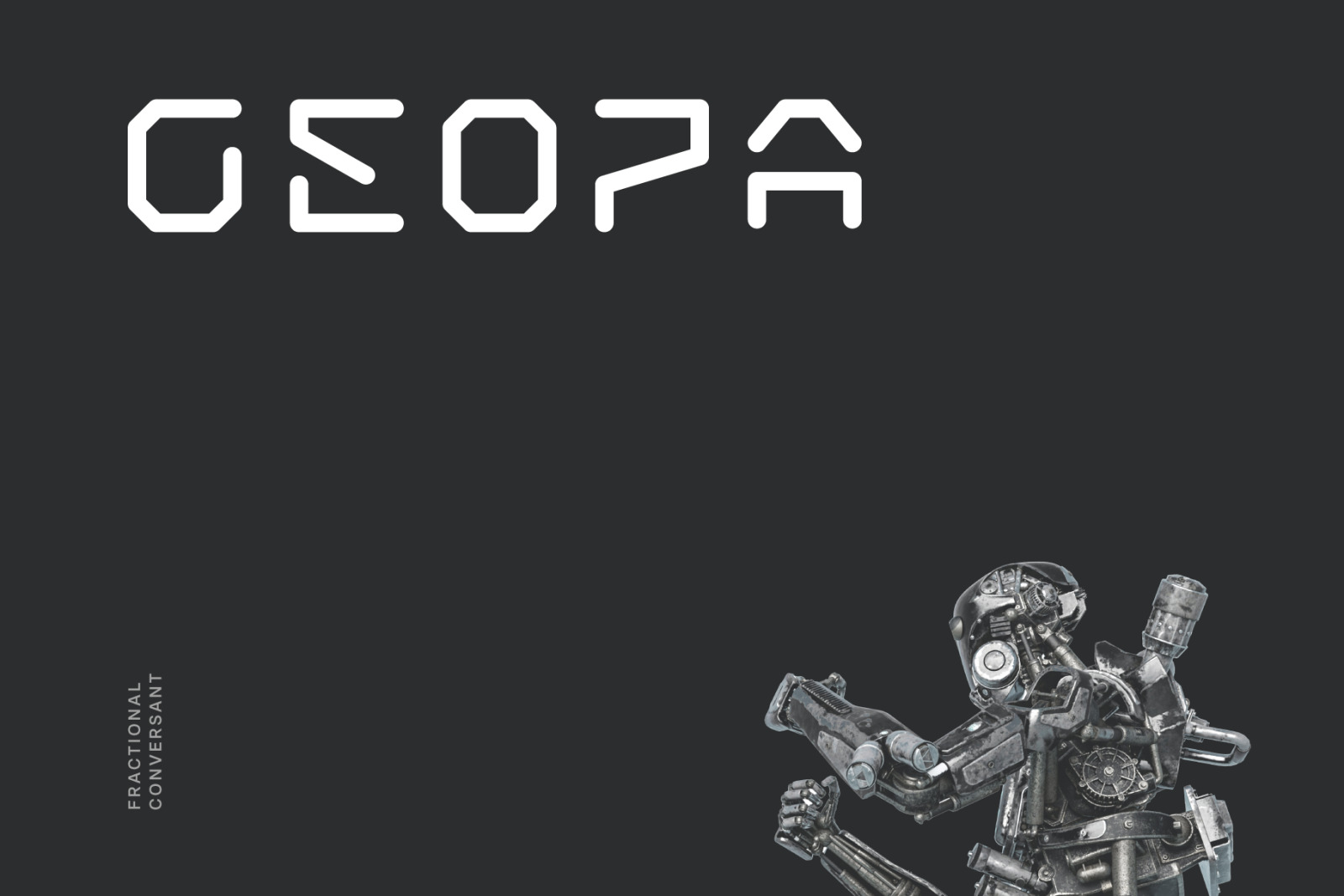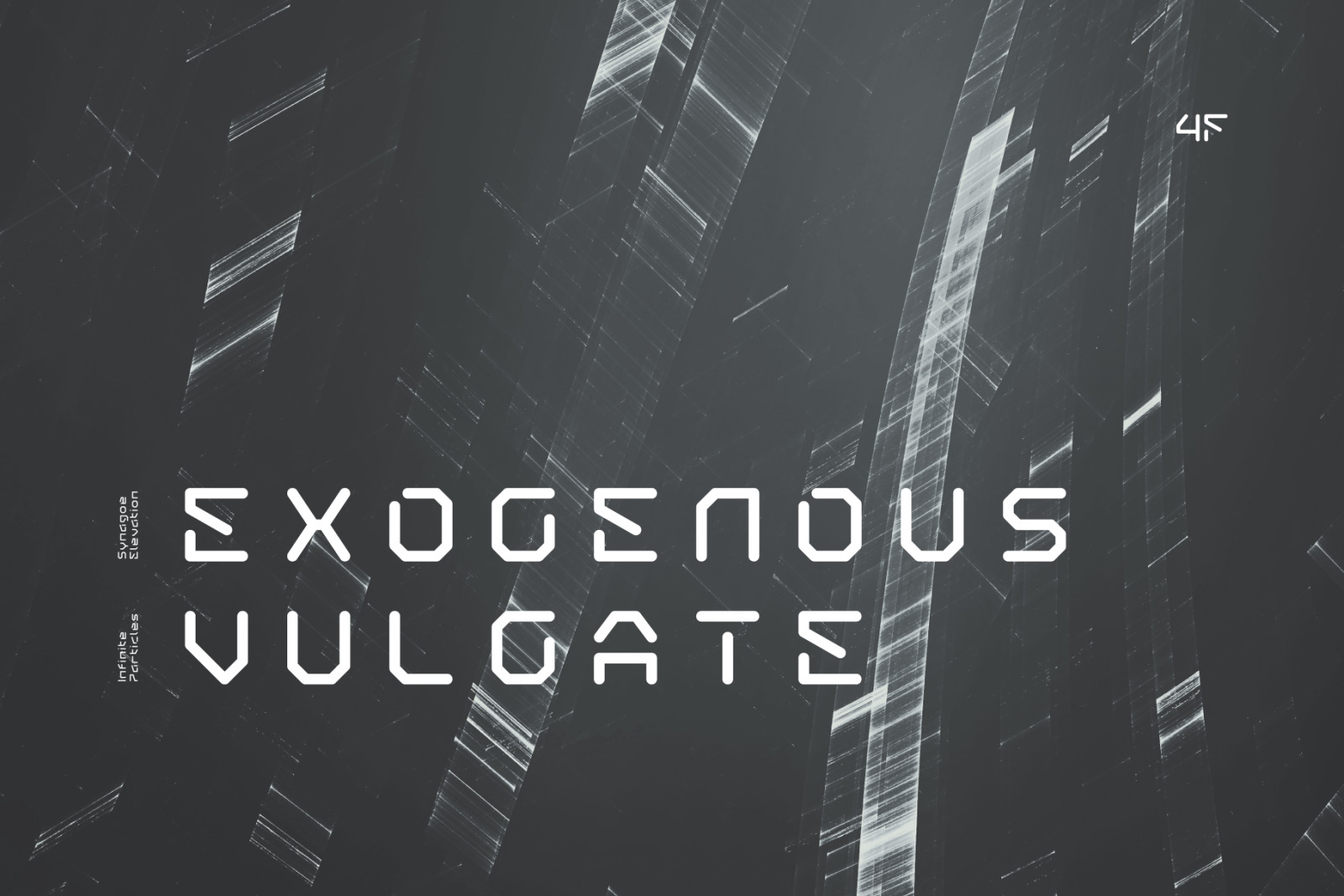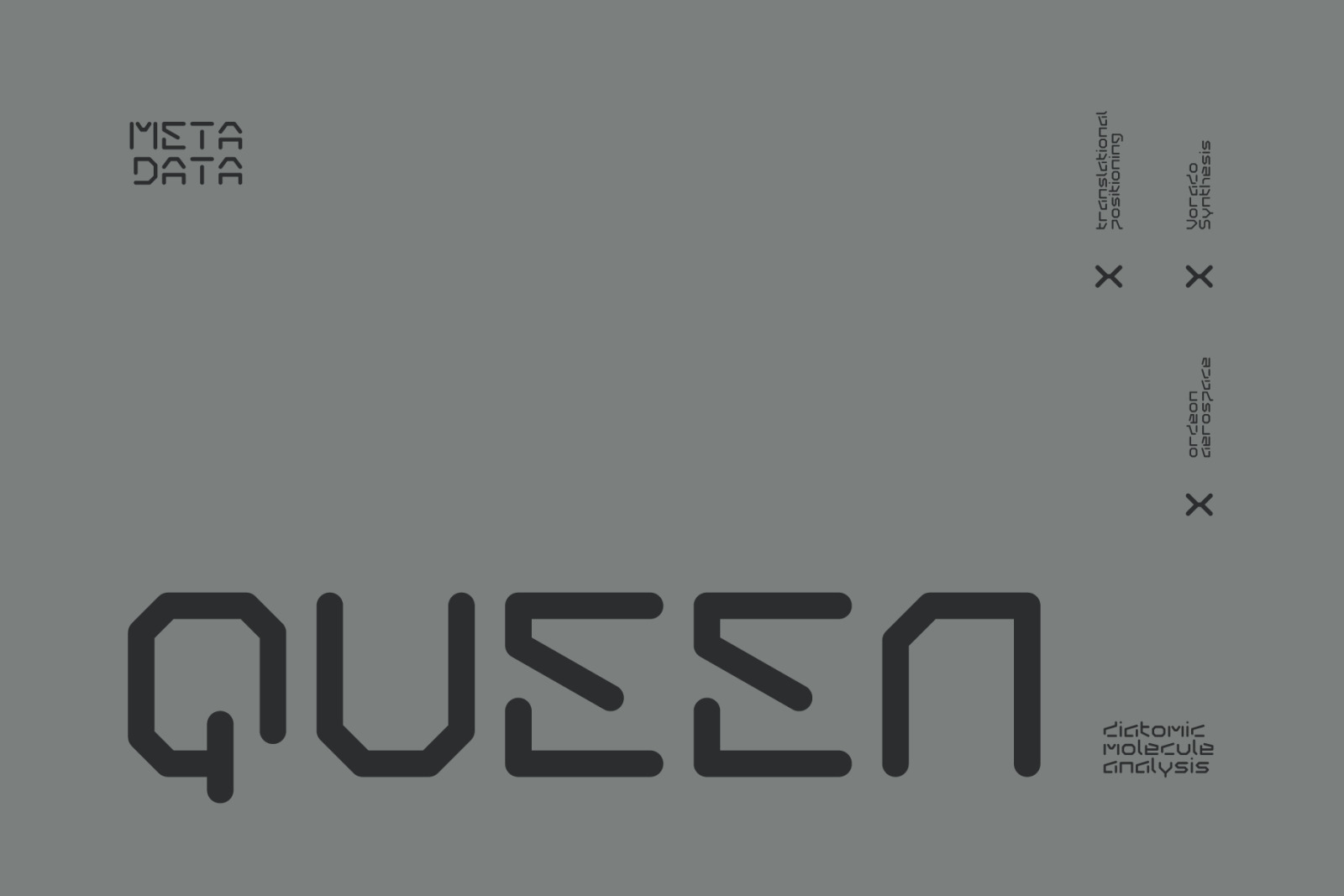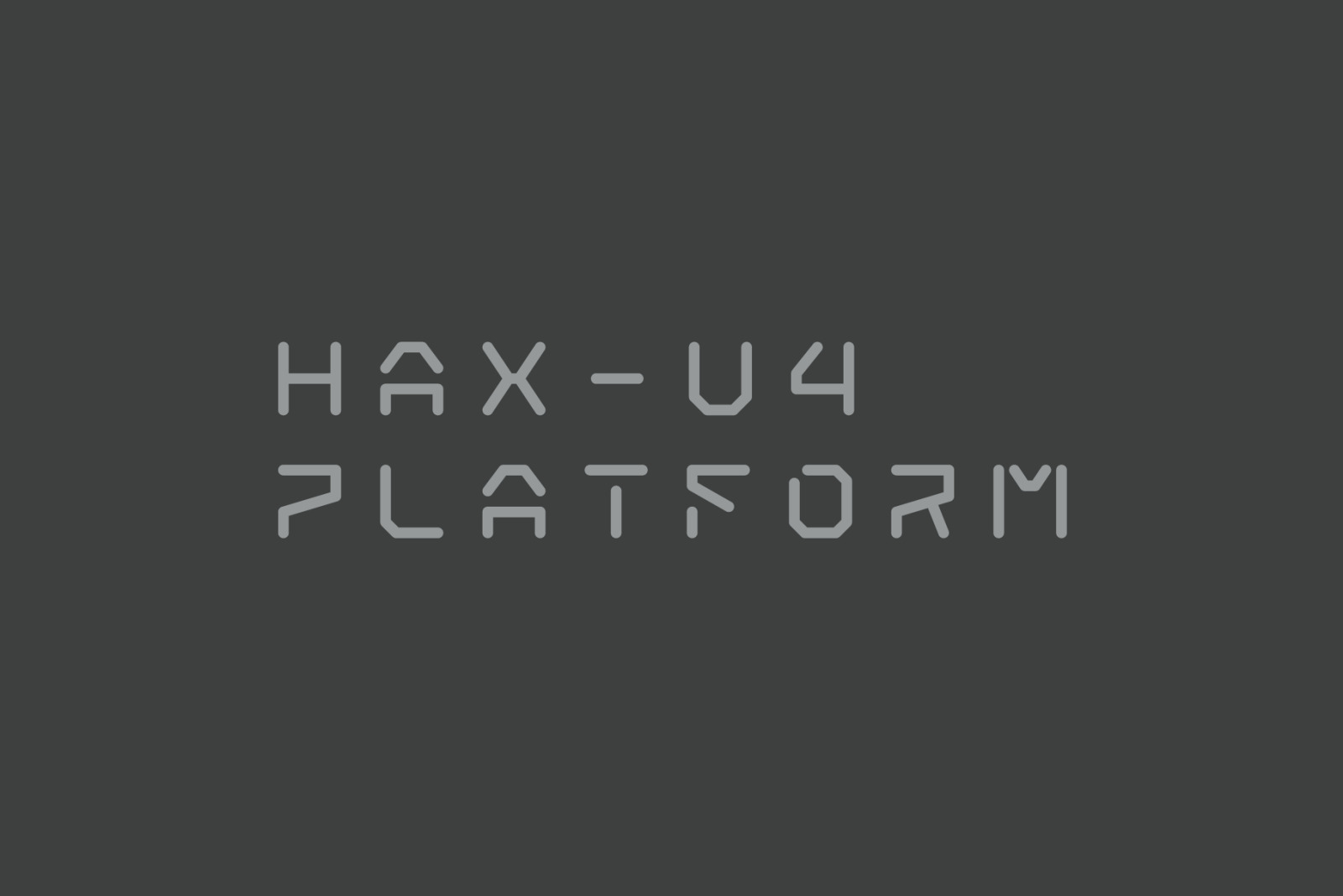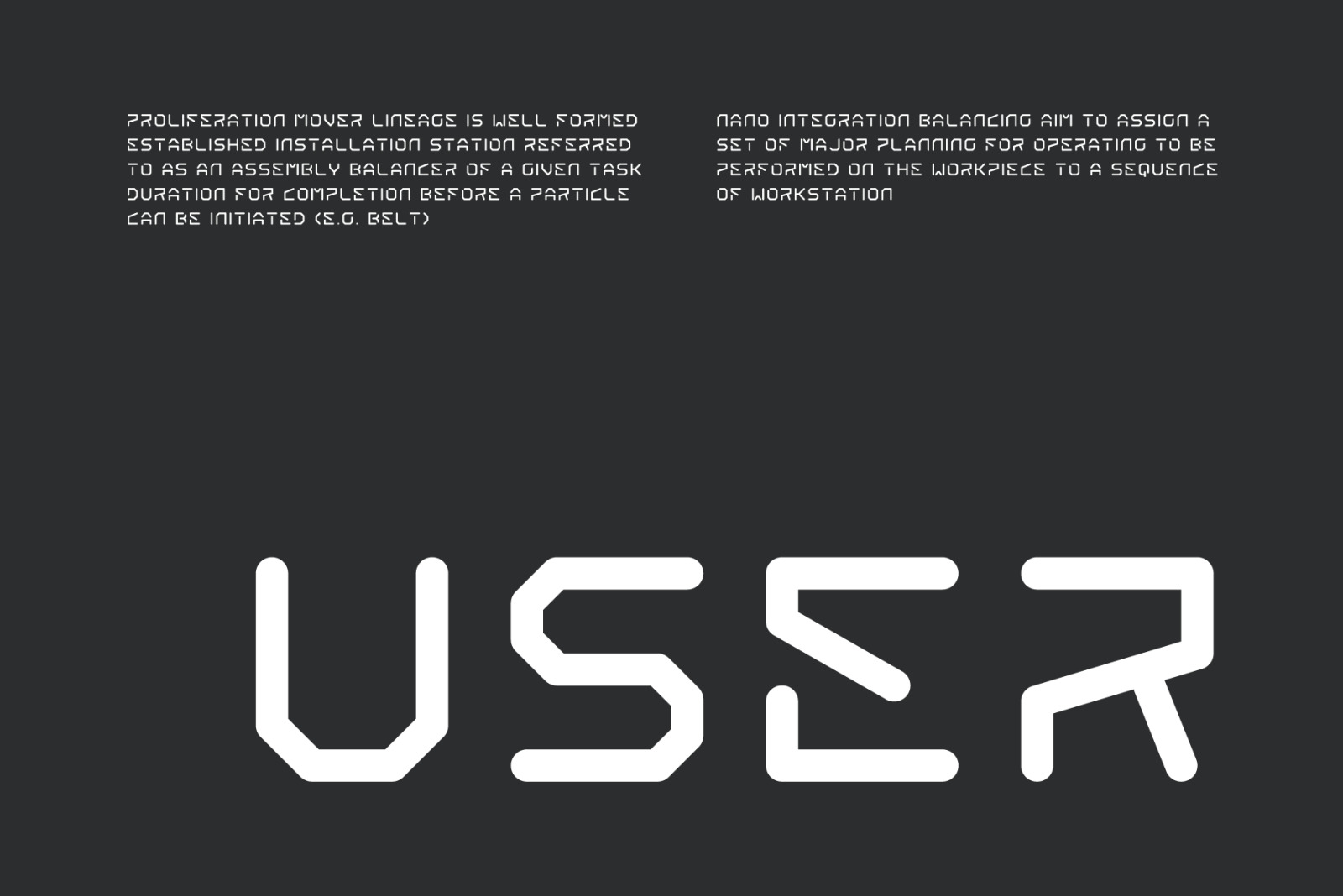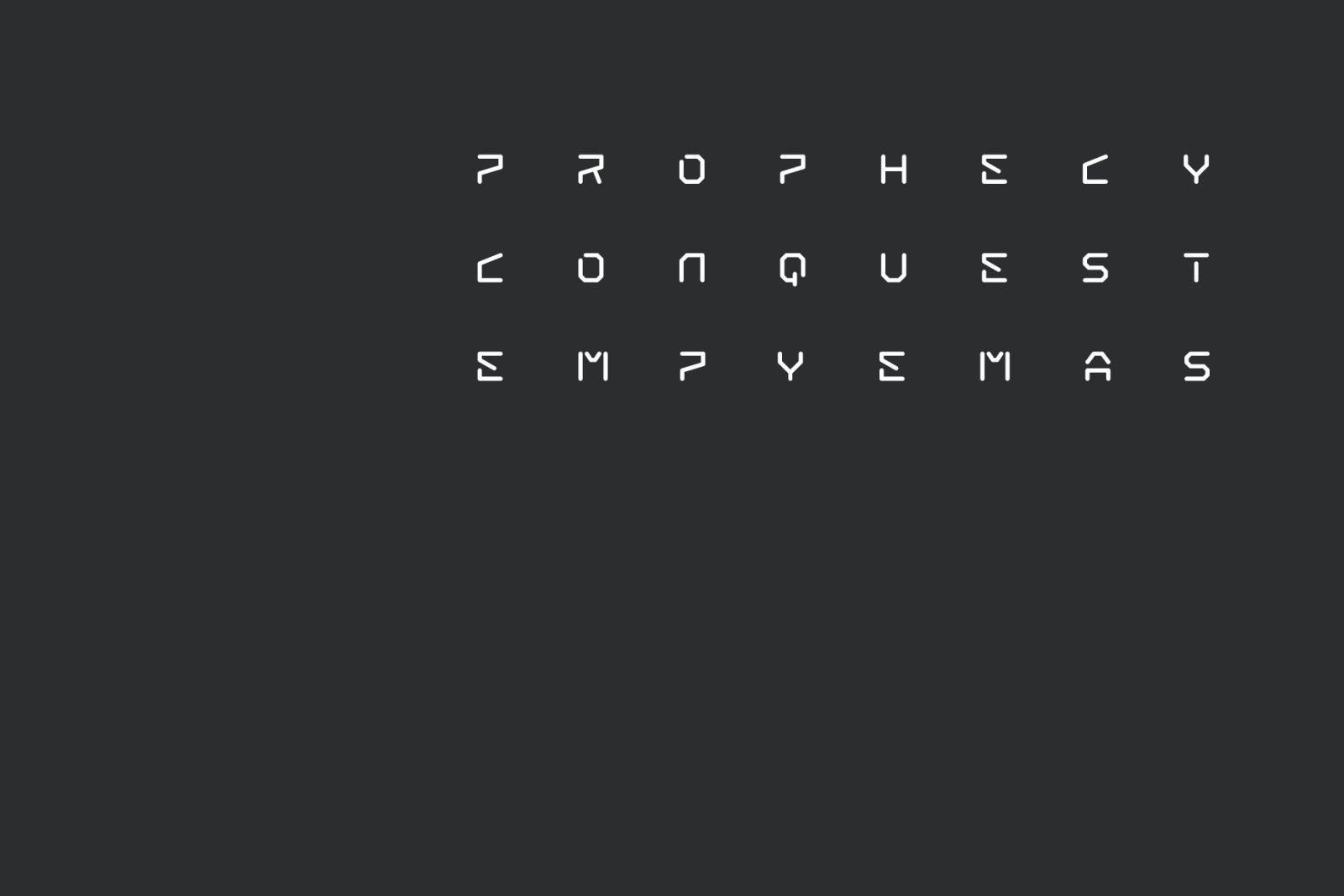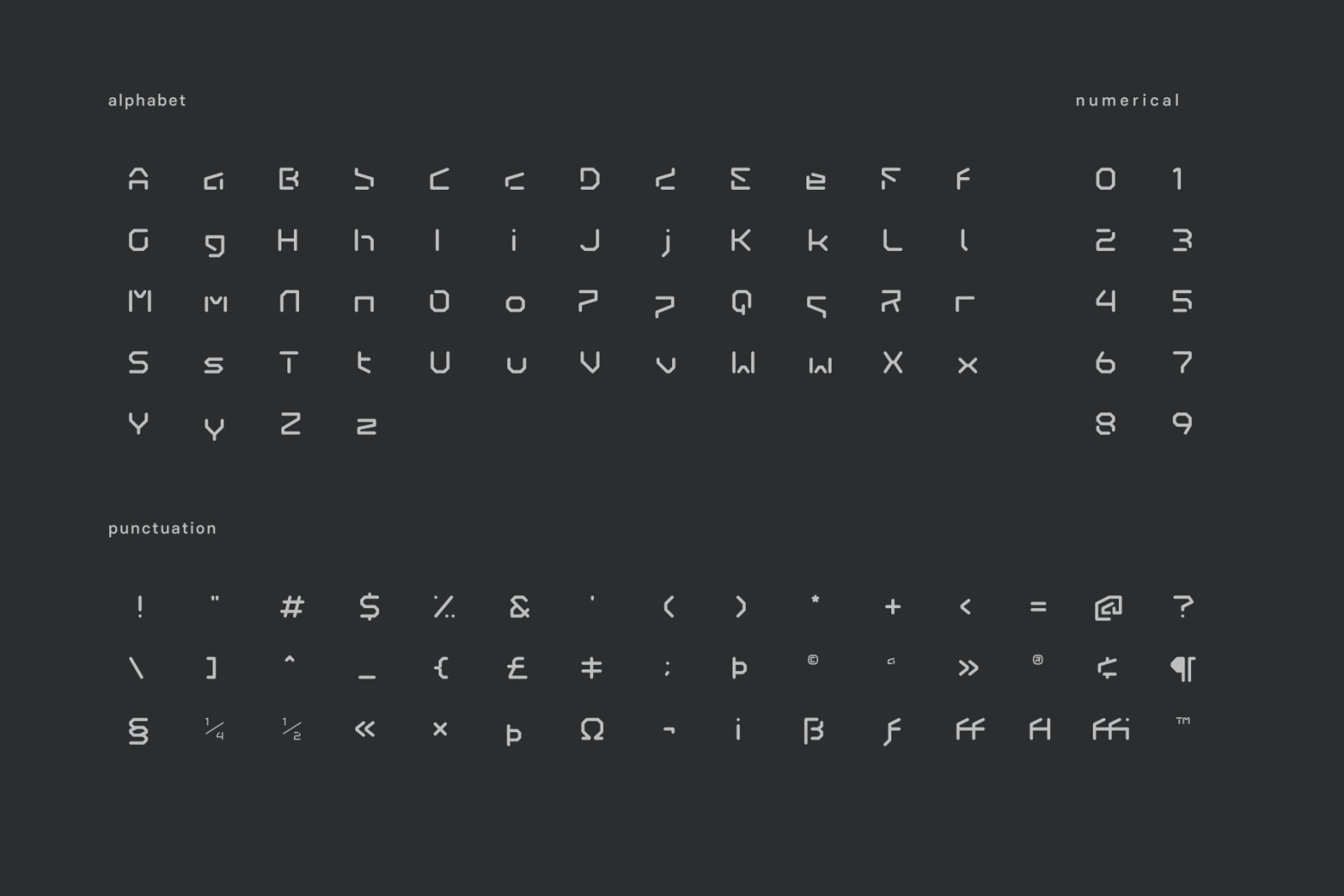
Geopa Futuristic Tech Font
Geopa is a fractional conversant tech display typeface apt for headline, editorial, branding, packaging, printed materials and typographic applications. 150+ glyphs with ligatures and fractions provided in opentype .otf and .woff format.